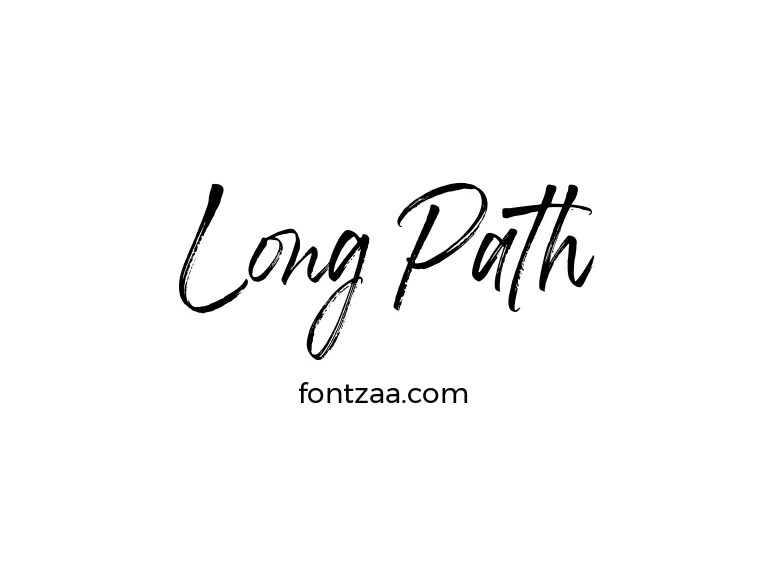
Long Path Font
Long Path Font introduces a elegant typographic style that can give creative projects a more individual appearance. Long Path Font brings a elegant personality to typography and gives designers a flexible starting point for creative display work. Testing several arrangements before choosing the final version can reveal which characteristics of the typeface work best. The font can work as the primary visual element in a minimal layout or as part of a more detailed composition. Different color combinations can make the same font feel subtle, energetic, premium or highly decorative. Possible applications include invitations, wedding stationery, signatures, quotes and elegant branding. Keeping secondary typography simple often allows the distinctive qualities of the main font to remain more visible. Print and digital layouts may require different sizing and spacing, so testing the actual output dimensions is recommended. The available source information lists Alpaprana Studio as the designer or publisher. The available licensing label is Free for personal use, but redistribution and commercial permissions should always be confirmed from the original source. Testing the font with the actual project text can provide a much better impression than viewing isolated sample characters.
Long Path Font brings a elegant personality to typography and gives designers a flexible starting point for headlines, branding and promotional layouts. Different color combinations can make the same font feel subtle, energetic, premium or highly decorative. The typeface can change considerably depending on tracking, scale, alignment, background and surrounding imagery. The font can work as the primary visual element in a minimal layout or as part of a more detailed composition. Its display-focused appearance makes it worth testing in invitations, wedding stationery, signatures, quotes and elegant branding. Designers should evaluate the typeface inside the real project because a standalone preview cannot show every possible visual combination. Print and digital layouts may require different sizing and spacing, so testing the actual output dimensions is recommended. Source metadata currently associates the font with Alpaprana Studio. License details are currently listed as Free for personal use. Users should verify the supplied documentation before using the font in products or paid projects. The most effective treatment will vary by project, so designers should compare several versions before finalizing the artwork.
With its distinctive letterforms, Long Path Font can introduce a elegant character into digital and print projects. The typeface can change considerably depending on tracking, scale, alignment, background and surrounding imagery. Different color combinations can make the same font feel subtle, energetic, premium or highly decorative. The font can work as the primary visual element in a minimal layout or as part of a more detailed composition. Designers may explore it across invitations, wedding stationery, signatures, quotes and elegant branding, depending on the tone and requirements of the project. Print and digital layouts may require different sizing and spacing, so testing the actual output dimensions is recommended. A clean serif or sans serif companion can handle smaller text while this font remains focused on headlines and key messages. Source metadata currently associates the font with Alpaprana Studio. License details are currently listed as Free for personal use. Users should verify the supplied documentation before using the font in products or paid projects. The most effective treatment will vary by project, so designers should compare several versions before finalizing the artwork.
Long Path Font Family
The Long Path Font Family gives designers a flexible display option that can be adapted through changes in size, spacing, alignment and color. Long Path Font stands out through its individual shapes and can become an important visual element in font-family exploration. Its letter shapes become especially noticeable at larger sizes, where spacing and proportions can be explored more clearly. Using generous space around the lettering can help the details of the typeface remain visible instead of competing with other elements. Testing several arrangements before choosing the final version can reveal which characteristics of the typeface work best. Its display-focused appearance makes it worth testing in invitations, wedding stationery, signatures, quotes and elegant branding. For layouts containing longer information, pairing it with a simpler supporting typeface can improve readability and hierarchy. Print and digital layouts may require different sizing and spacing, so testing the actual output dimensions is recommended. The available source information lists Alpaprana Studio as the designer or publisher. The listed license is Free for personal use, although users should still review the original font package before commercial use. Testing the font with the actual project text can provide a much better impression than viewing isolated sample characters.
Long Path Font Alphabet Preview
Getting Better Results With Long Path Font
With its distinctive letterforms, Long Path Font can introduce a elegant character into spacing, contrast, scale and layout decisions. Its letter shapes become especially noticeable at larger sizes, where spacing and proportions can be explored more clearly. Using generous space around the lettering can help the details of the typeface remain visible instead of competing with other elements. The typeface can change considerably depending on tracking, scale, alignment, background and surrounding imagery. Creative uses may range from invitations, wedding stationery, signatures, quotes and elegant branding, with different results depending on scale and layout. Print and digital layouts may require different sizing and spacing, so testing the actual output dimensions is recommended. A clean serif or sans serif companion can handle smaller text while this font remains focused on headlines and key messages. Source metadata currently associates the font with Alpaprana Studio. Current license information is shown as Free for personal use; checking the original documentation is recommended before client or commercial work. Its final appearance will depend heavily on the surrounding colors, imagery, spacing and supporting typography.
Design Ideas for Long Path Font
For projects that need typography with a stronger identity, Long Path Font offers a elegant direction suited to different creative applications for the font. Using generous space around the lettering can help the details of the typeface remain visible instead of competing with other elements. The font can work as the primary visual element in a minimal layout or as part of a more detailed composition. The typeface can change considerably depending on tracking, scale, alignment, background and surrounding imagery. Possible applications include invitations, wedding stationery, signatures, quotes and elegant branding. A clean serif or sans serif companion can handle smaller text while this font remains focused on headlines and key messages. Previewing the final layout on both large and small screens helps identify spacing and readability problems early. The available source information lists Alpaprana Studio as the designer or publisher. Current license information is shown as Free for personal use; checking the original documentation is recommended before client or commercial work. The most effective treatment will vary by project, so designers should compare several versions before finalizing the artwork.
What Makes Long Path Font Stand Out
The visual character of Long Path Font makes it an interesting choice for designers working on the visual characteristics and design personality of the typeface. Different color combinations can make the same font feel subtle, energetic, premium or highly decorative. The font can work as the primary visual element in a minimal layout or as part of a more detailed composition. Testing several arrangements before choosing the final version can reveal which characteristics of the typeface work best. Its display-focused appearance makes it worth testing in invitations, wedding stationery, signatures, quotes and elegant branding. Keeping secondary typography simple often allows the distinctive qualities of the main font to remain more visible. A clean serif or sans serif companion can handle smaller text while this font remains focused on headlines and key messages. The available source information lists Alpaprana Studio as the designer or publisher. The listed license is Free for personal use, although users should still review the original font package before commercial use. A few quick layout variations can help determine where the font creates the strongest visual result.
Compatibility of Long Path Font
For projects that need typography with a stronger identity, Long Path Font offers a elegant direction suited to TTF and OTF compatibility with design software. Its letter shapes become especially noticeable at larger sizes, where spacing and proportions can be explored more clearly. Testing several arrangements before choosing the final version can reveal which characteristics of the typeface work best. The font can work as the primary visual element in a minimal layout or as part of a more detailed composition. Its display-focused appearance makes it worth testing in invitations, wedding stationery, signatures, quotes and elegant branding. Keeping secondary typography simple often allows the distinctive qualities of the main font to remain more visible. Previewing the final layout on both large and small screens helps identify spacing and readability problems early. The available source information lists Alpaprana Studio as the designer or publisher. The listed license is Free for personal use, although users should still review the original font package before commercial use. The most effective treatment will vary by project, so designers should compare several versions before finalizing the artwork. If the font does not immediately appear in an application, restarting the program can refresh its available typeface list.
Social Media Ideas With Long Path Font